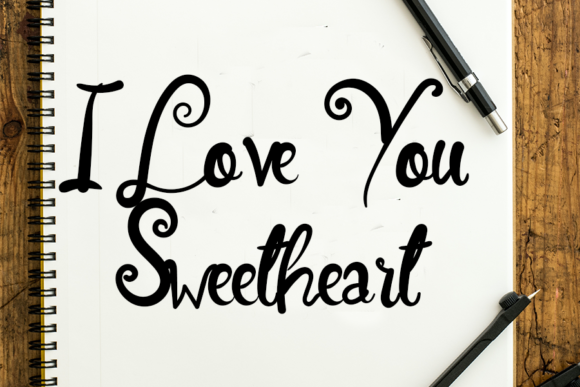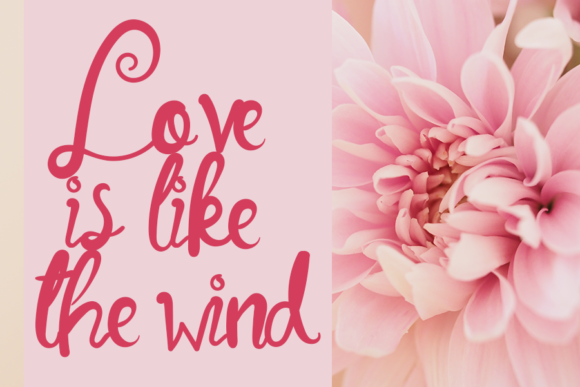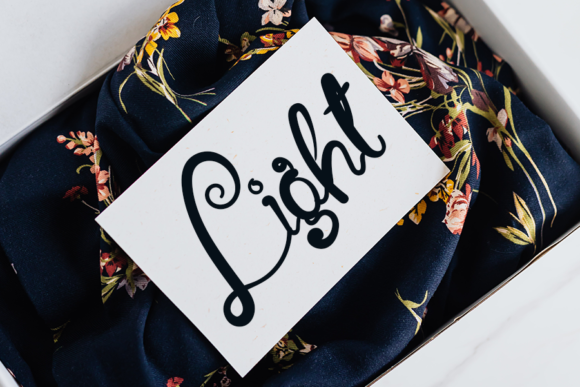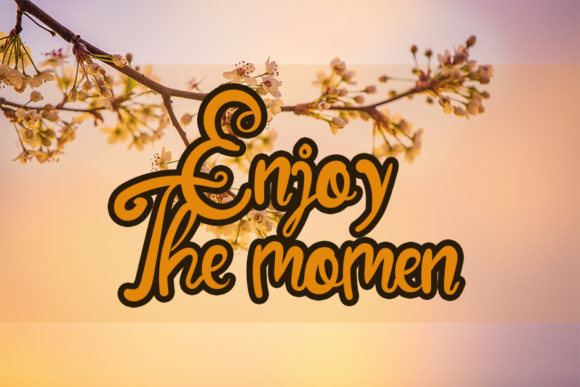
About Little Flower Font
Little Flower is a chic and exquisite handwritten font. It looks lovely on a variety of designs requiring a personalized style, such as wedding invitations, thank you cards, weddings, greeting cards, logos and so on.